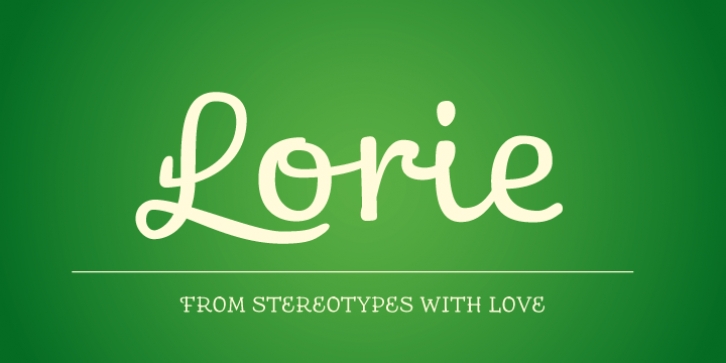
St Lorie was designed by Sascha Timplan and published by Stereotypes. St Lorie contains 1 style.
St Lorie is inspired by handmade lettering in logos, but it was drawn completely by the digital method.